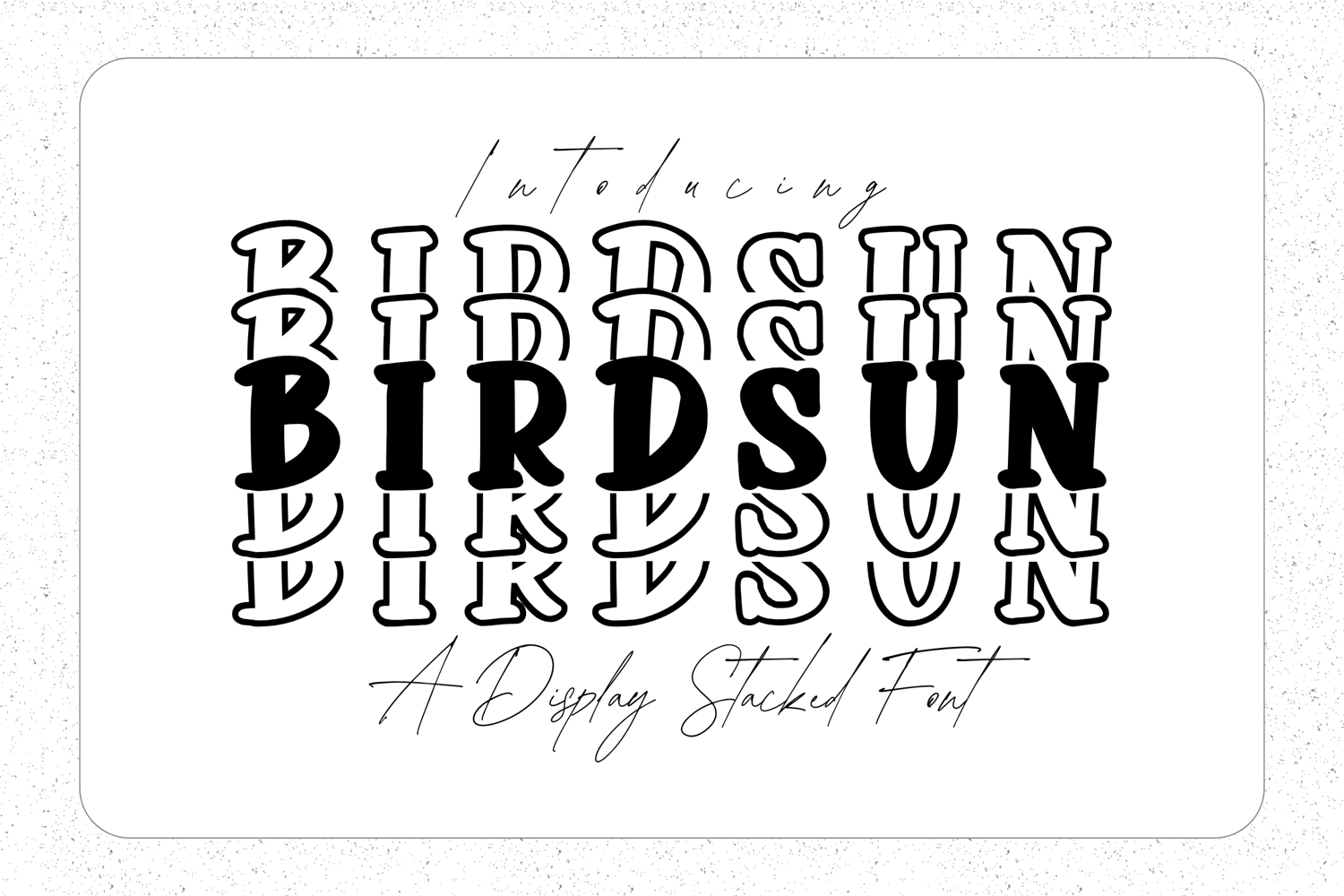
Birdsun Stacked - Bold Playful Display Font
Birdsun Stacked
Add height, charm, and bold profesional to your designs with Birdsun Stacked, a modern stacked-style display font crafted to stand tall and shine bright. With its layered serif design and retro flair, Birdsun Stacked is perfect for projects that need to stand out in a fun and confident way.
Whether you're working on branding, editorial layouts, Instagram quotes, or vintage-inspired merch, this font brings both structure and sweetness to your creative work.
🎯 Perfect For:
• Retro logos & brand identity
• Editorial headlines & magazine layouts
• Instagram posts & bold quotes
• Posters, flyers, and event signage
• Sticker packs, shirts, and product packaging